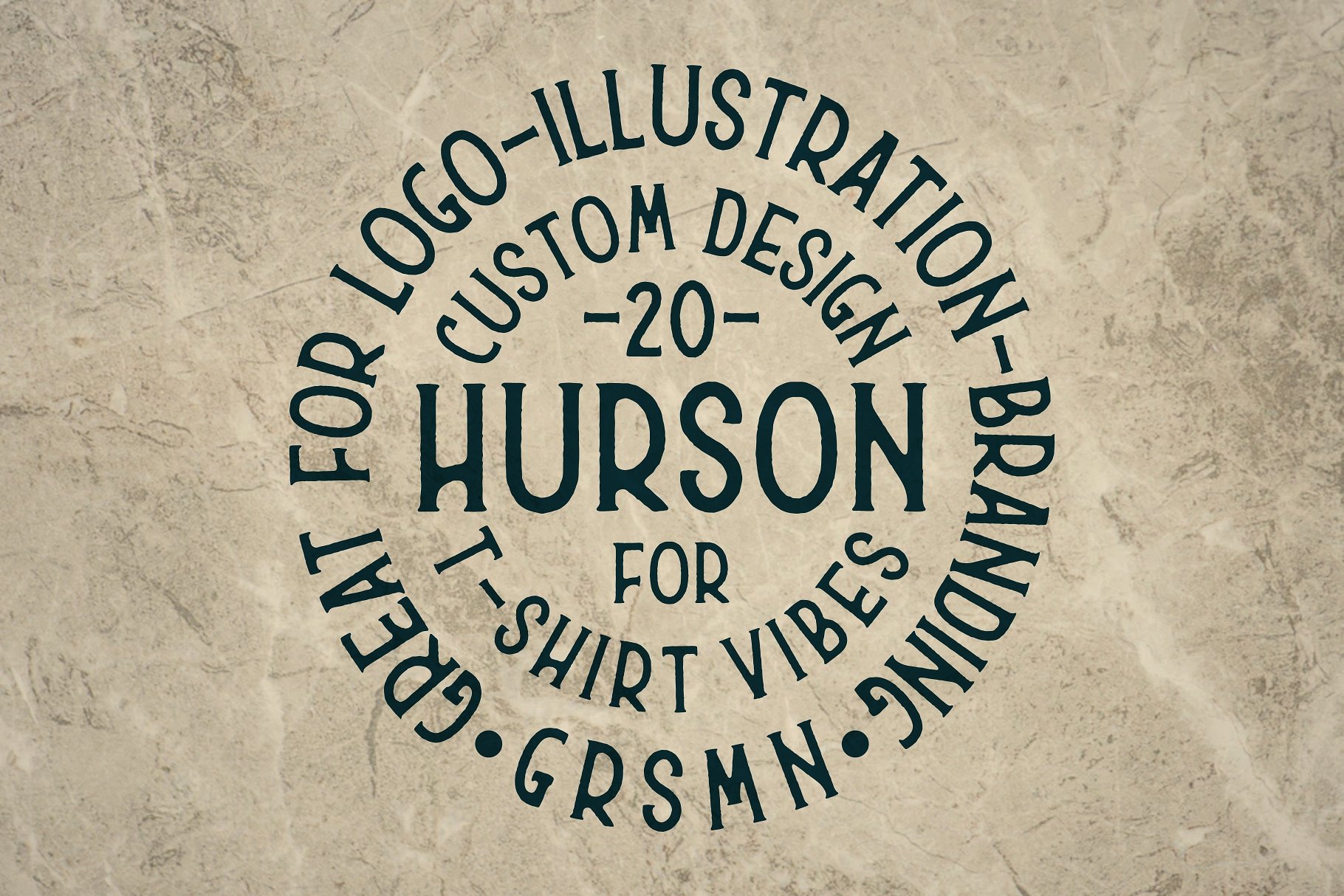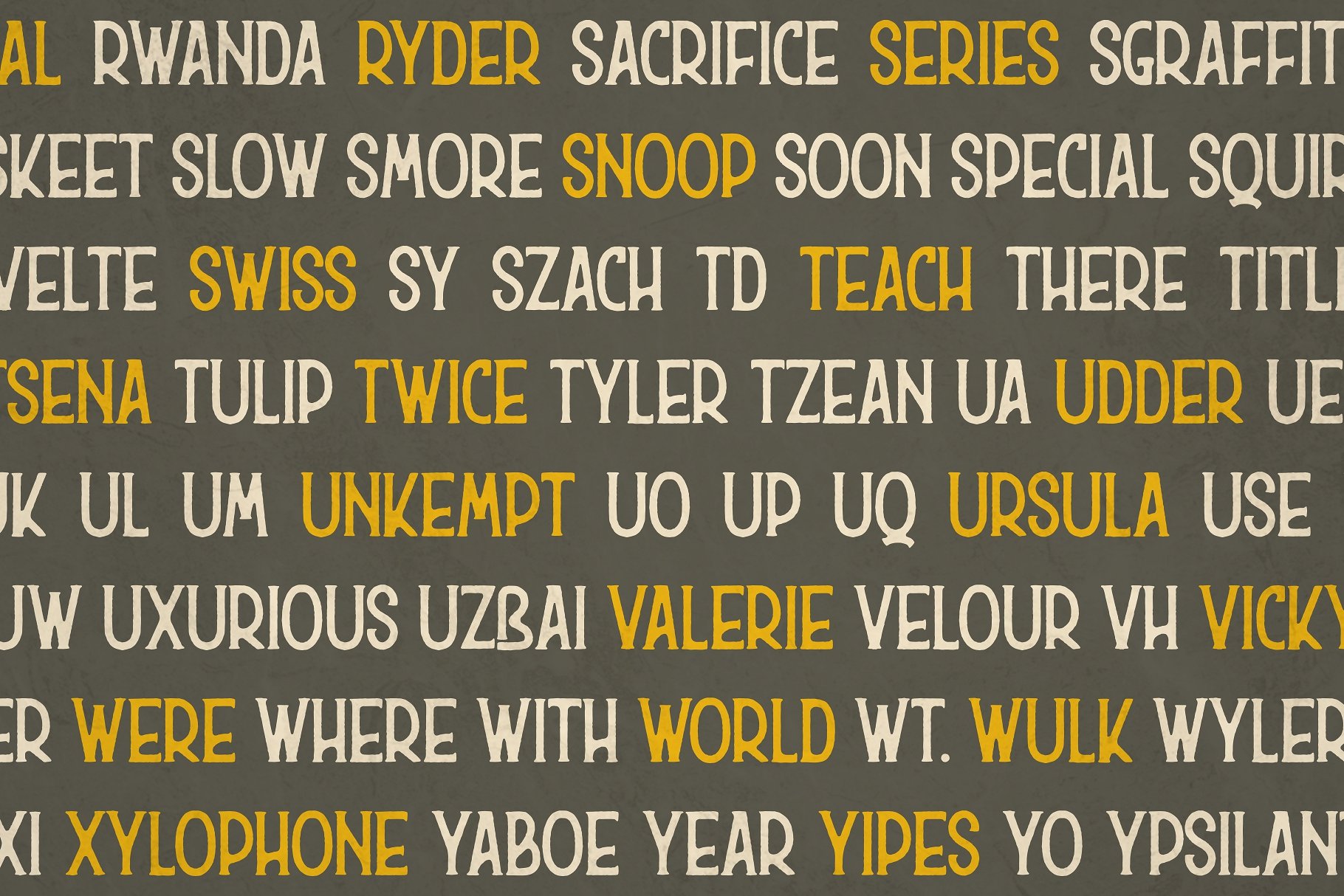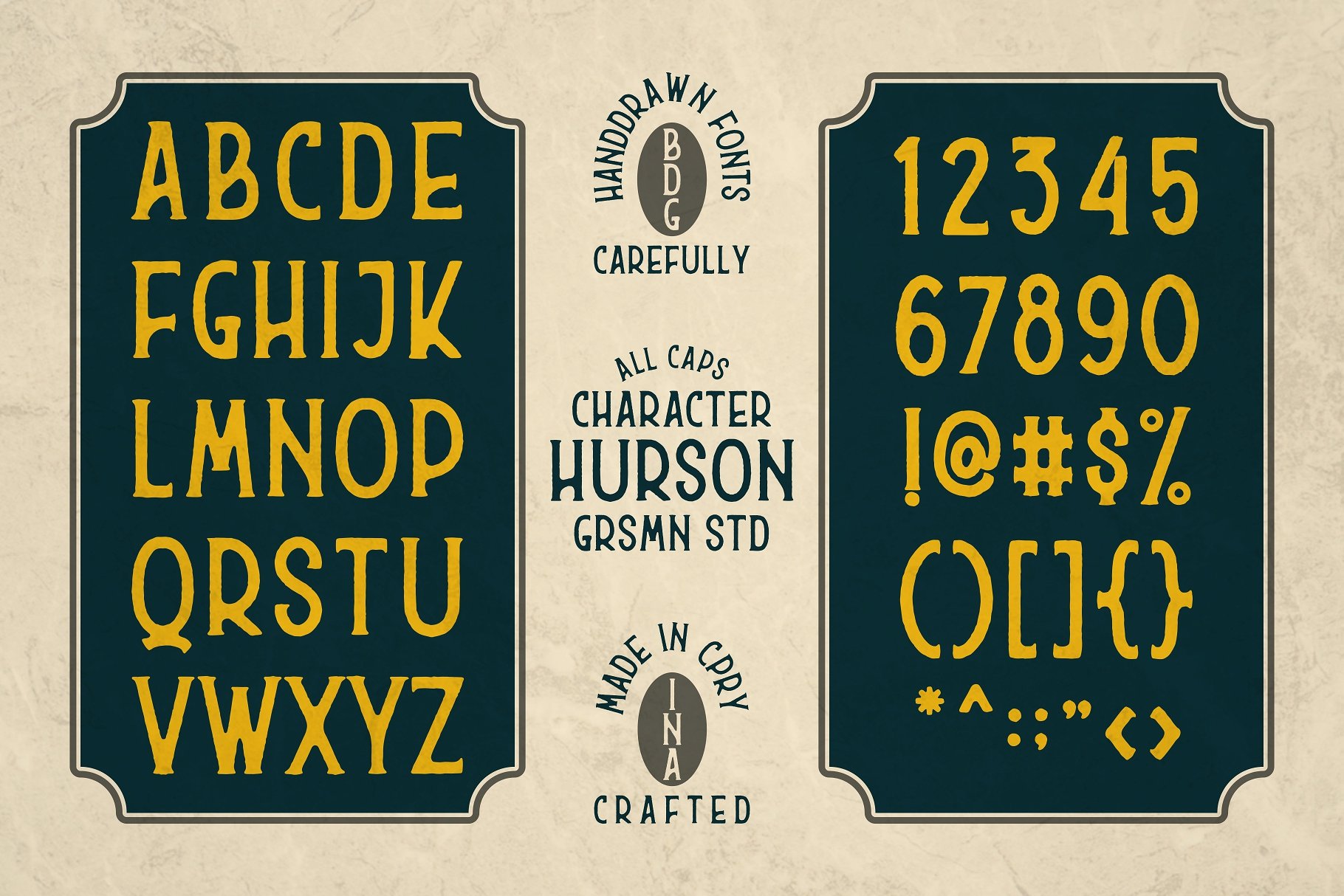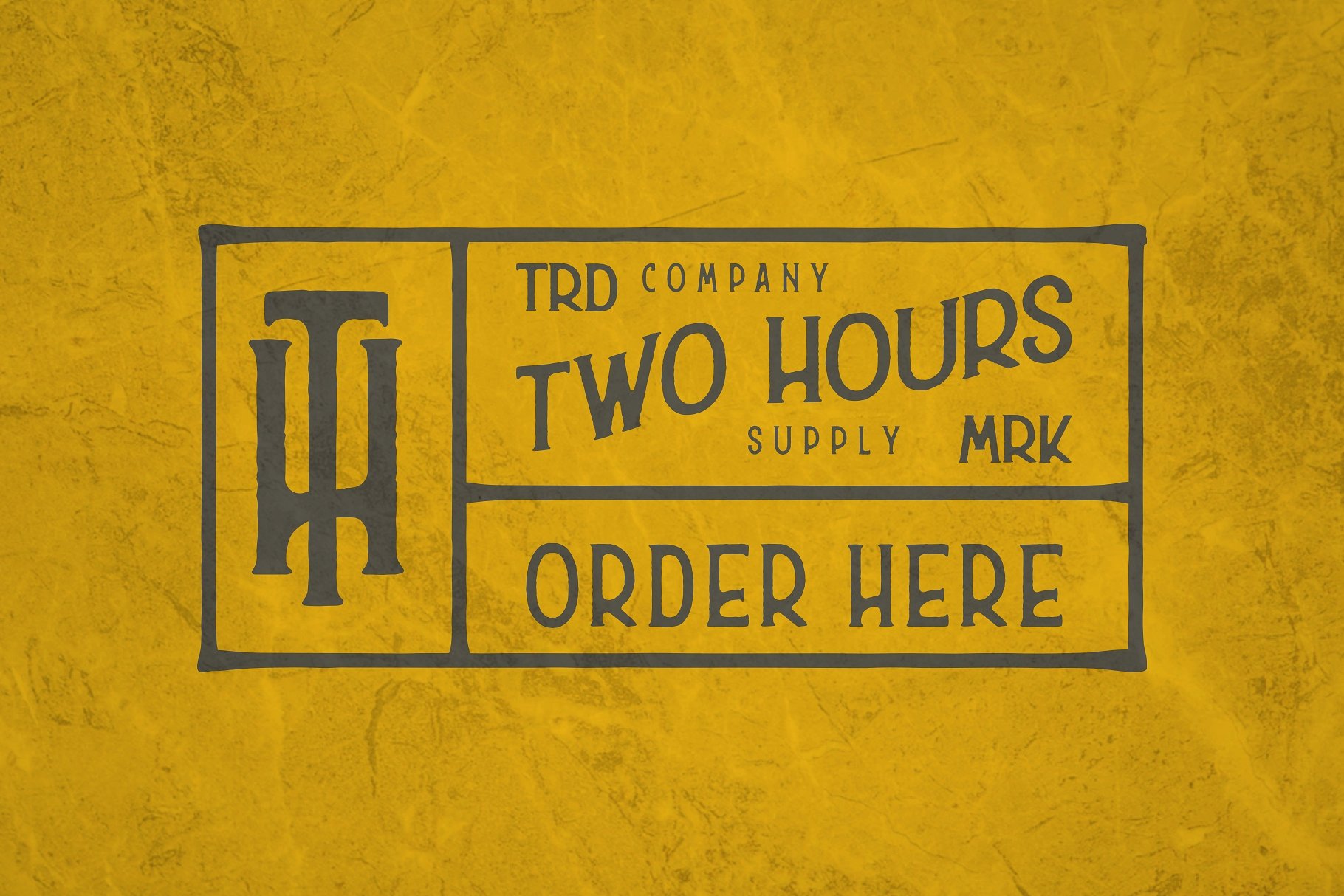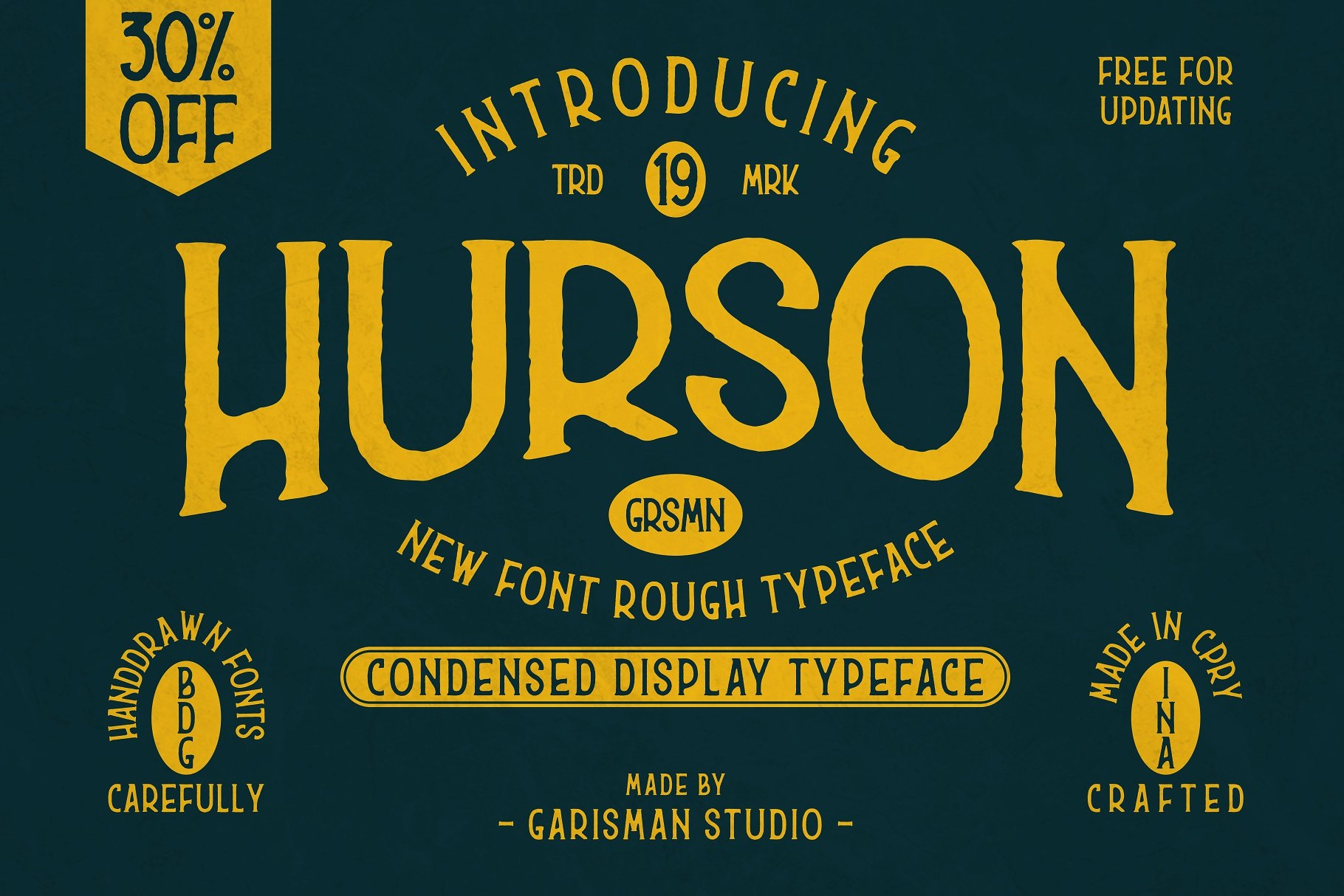
Hurson Typeface
A new font rough typeface. Thank you for looking Hurson Font. Connecting script, designed to convey elegance and style. It is slender, feminine and friendly! Hurson designed by Garisman Std. Hurson Typeface is born from original and hand-drawn style font. This font gives a feel of vintage, classic, old, handmade looked like. Already PUA Encoded and I think this font is perfect for people looking for vintage aesthetic or handdrawn logo. Suitable for any graphic designs such as branding materials, t-shirt, print, business cards, logo, poster, t-shirt, photography, quotes .etc.